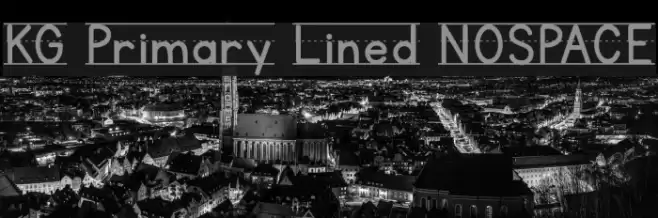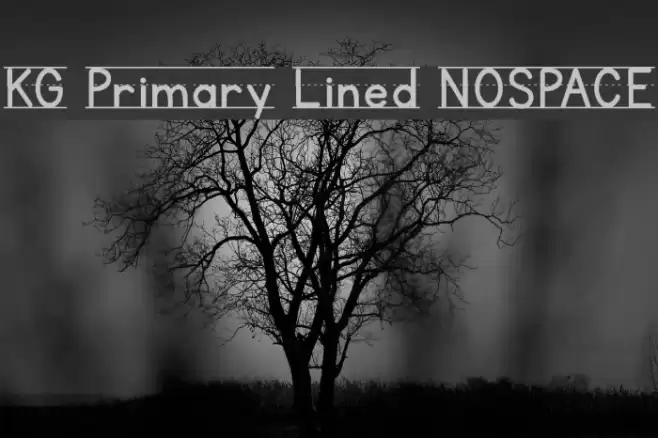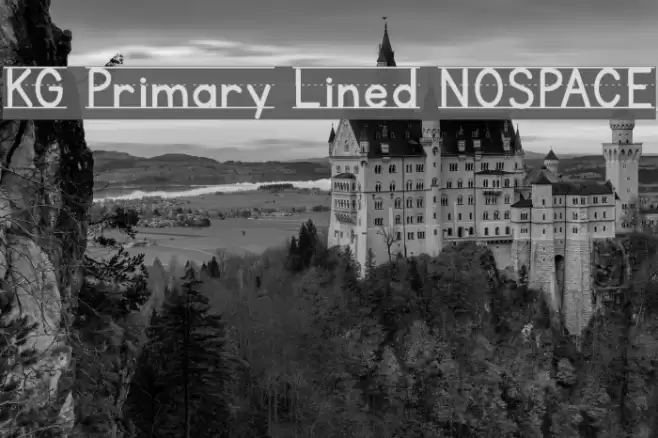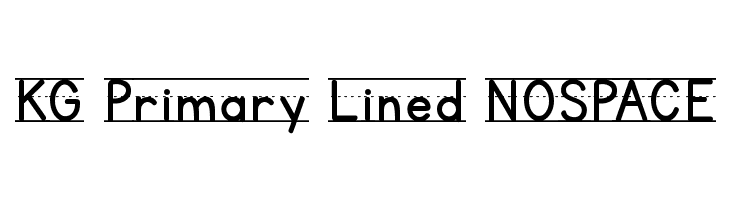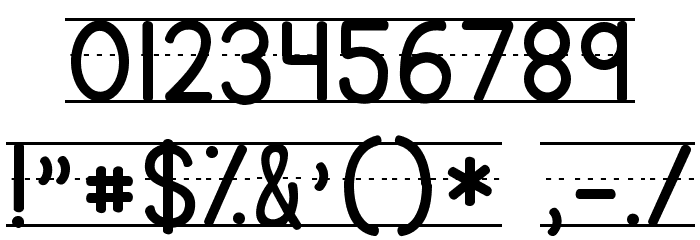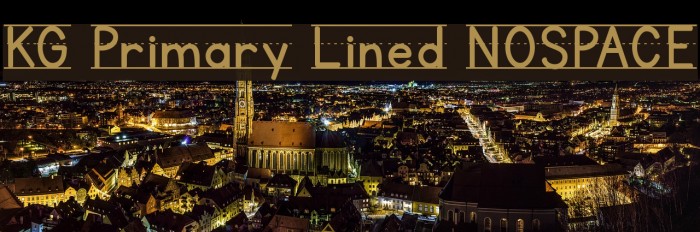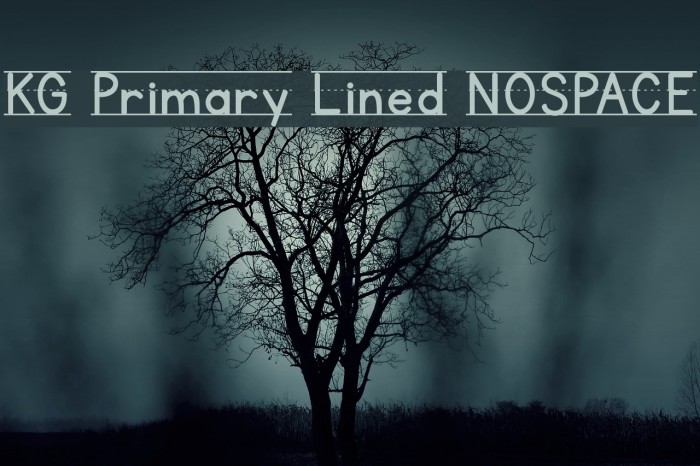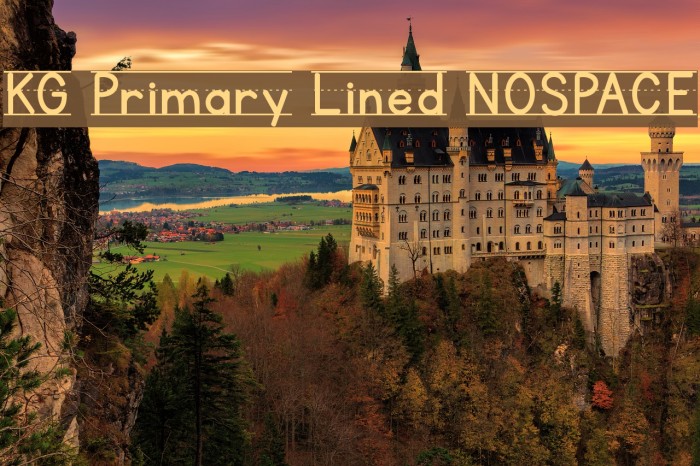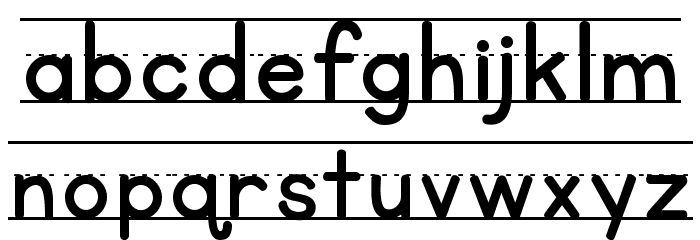
KG Primary Lined NOSPACE Font
KG Primary Lined NOSPACE Description
This font features a playful and educational style, reminiscent of handwriting practice sheets used in primary education. The characters are bold and rounded, with a consistent stroke width that makes them easy to read. The uppercase and lowercase letters are clearly distinguished, and the numerals are straightforward and legible. The special characters maintain the same playful and approachable design, making this font suitable for educational materials. The lined background suggests its use in teaching handwriting, providing a structured guide for young learners.
A playful, educational font with bold, rounded characters ideal for teaching handwriting from Uncategorized fonts.
- Proposed Projects: Ideal for educational materials, children's books, handwriting practice sheets, and playful graphic designs.
- Overall Style: Educational, Playful
- Use Case: Educational materials, Children's books, Handwriting practice